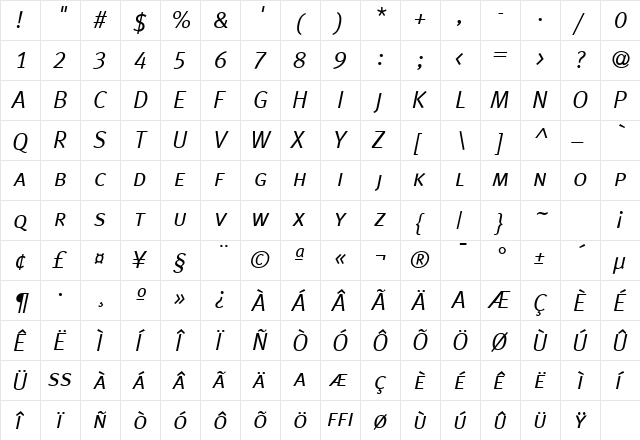
MetaPlus Normal Caps Italic Regular
Design Context for MetaPlus Normal Caps Italic Typeface
MetaPlus Normal Caps Italic takes a measured approach to typography — its balanced proportions and neutral character make it a reliable workhorse for both digital and print work. The dynamic lean of this cut emphasises speed and emphasis in any layout.
Pro Tip: Try MetaPlus Normal Caps Italic for annotation and caption copy alongside an upright companion — the contrast in angle creates a dynamic but ordered typographic system.